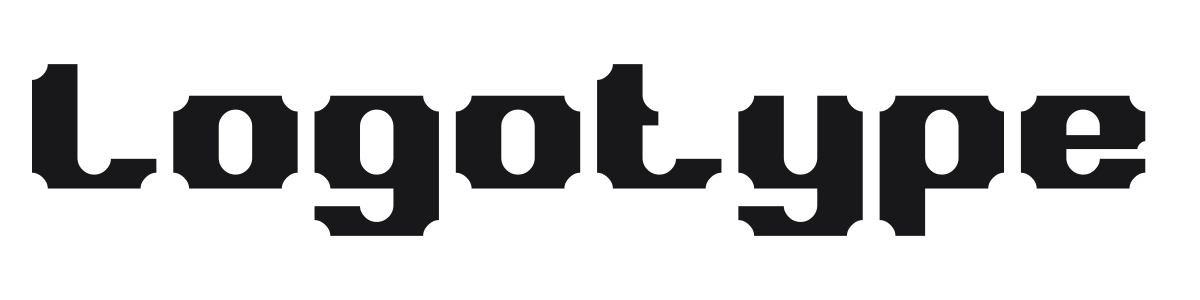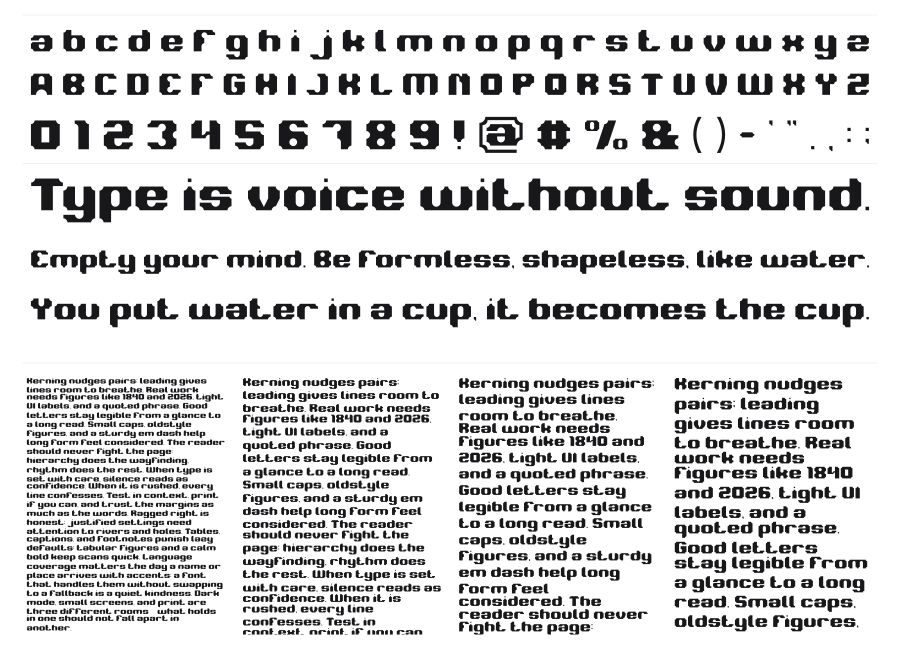
Logotype
Logotype is a heavy, blocky bitmap face from weknow with thick pixel-built letterforms that feel like they belong on an early computer terminal or a chunky digital scoreboard. The bold weight gives it real density at display sizes, landing naturally on retro-themed headers, game interfaces, and poster work where digital nostalgia needs to hit with some force.